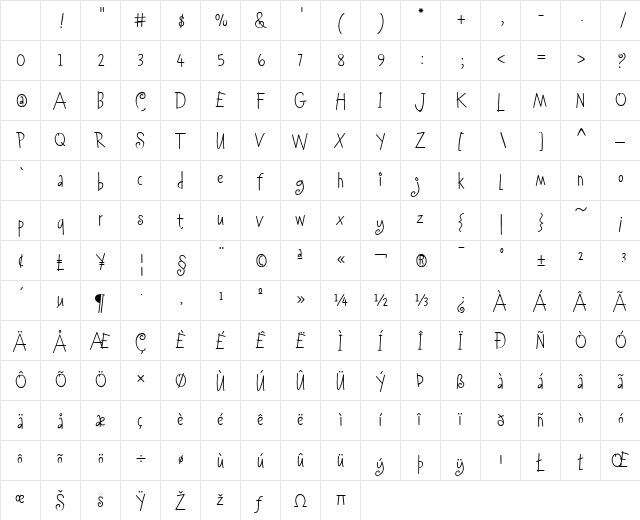
Complete Peach Fuzz Regular glyph index. Displaying only characters natively supported by Peach Fuzz Regular font.
Peach Fuzz is a composed and adaptable typeface that performs quietly and consistently across a wide range of design contexts.